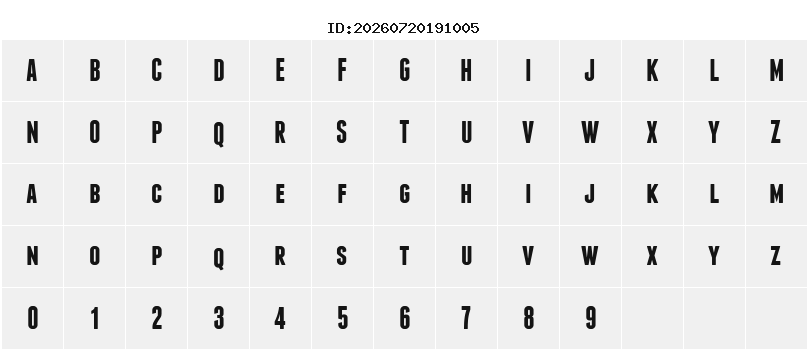
• Font Name: Franchise
About Franchise.ttf
Franchise.ttf is a modern, elegant sans-serif font designed for ultimate readability and visual harmony. Perfect for branding, headlines, web design, and print materials.